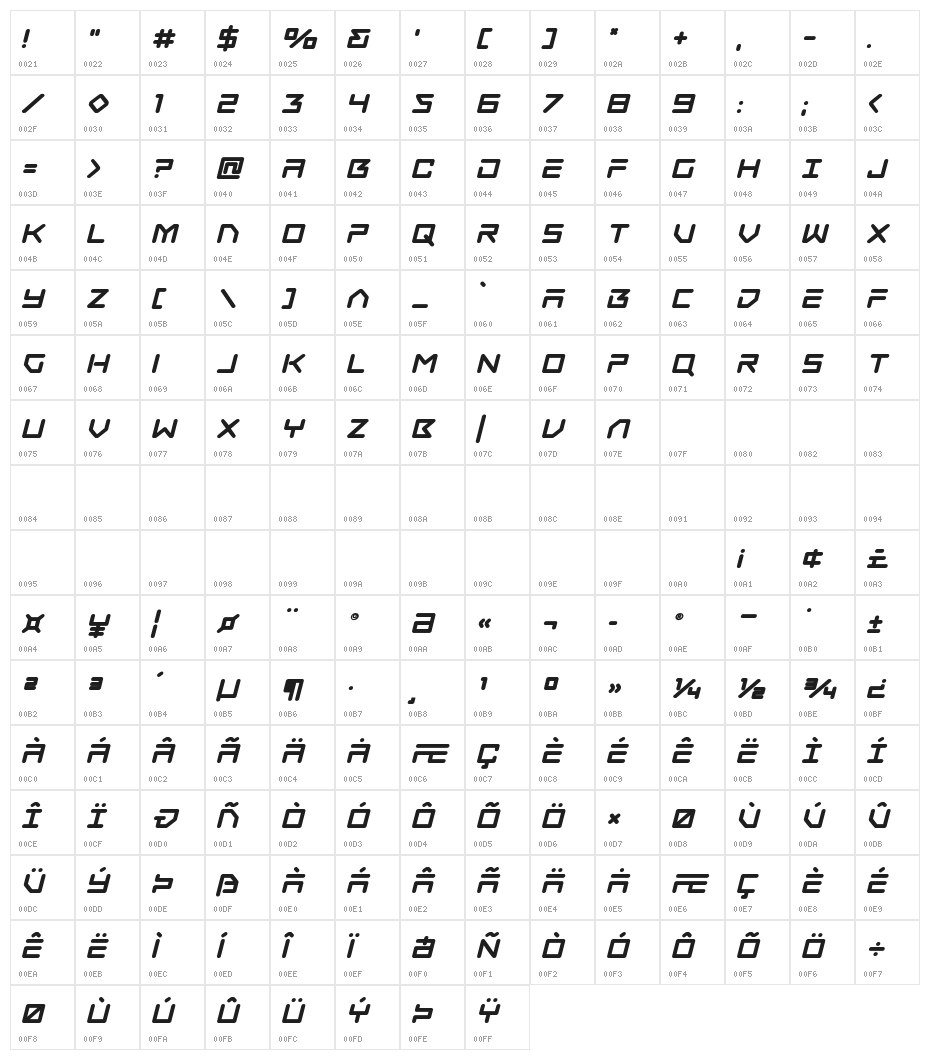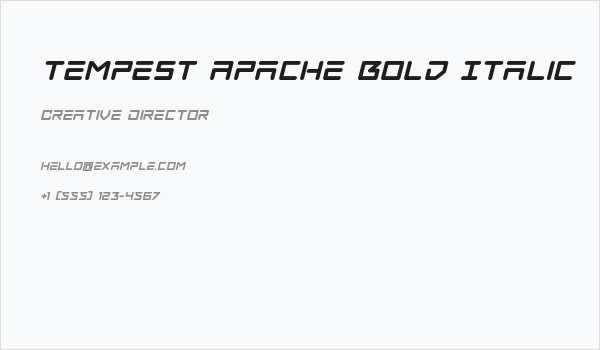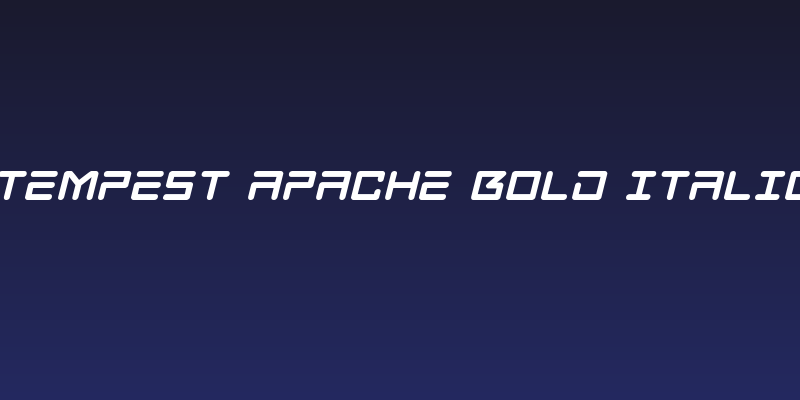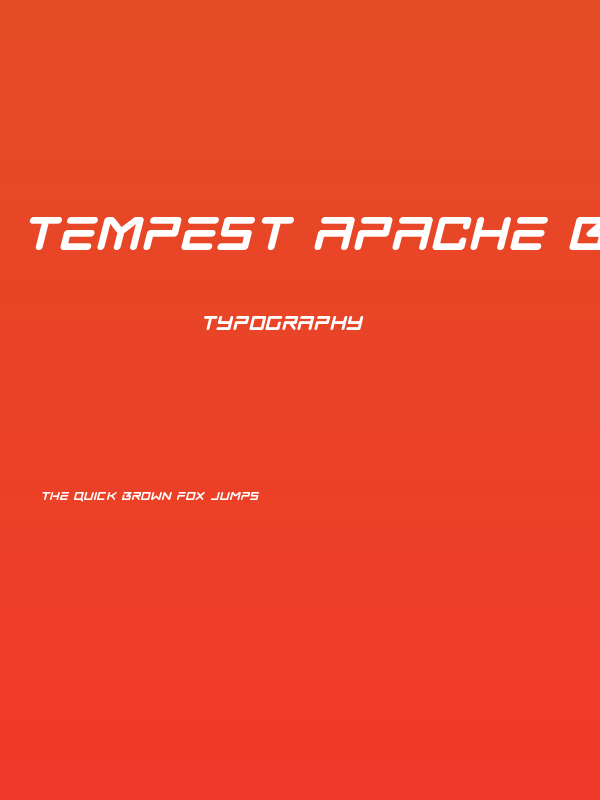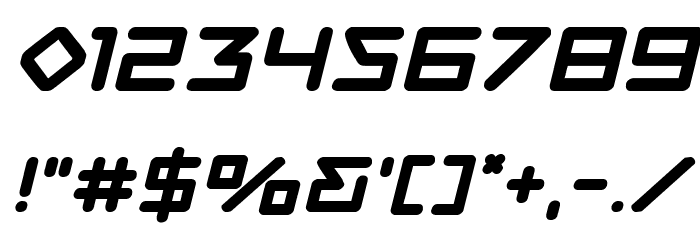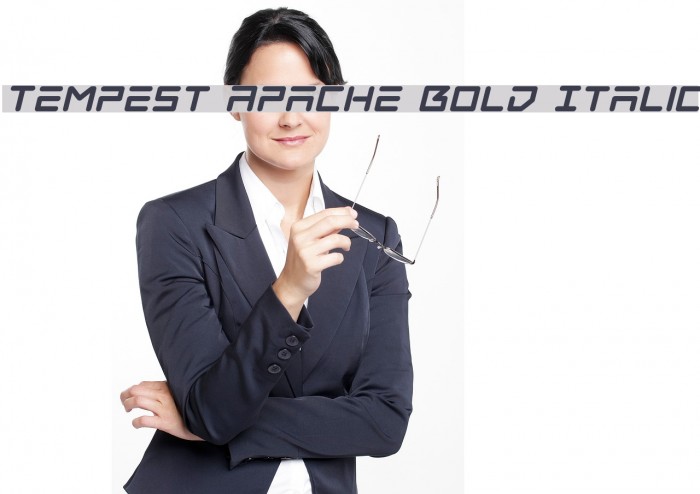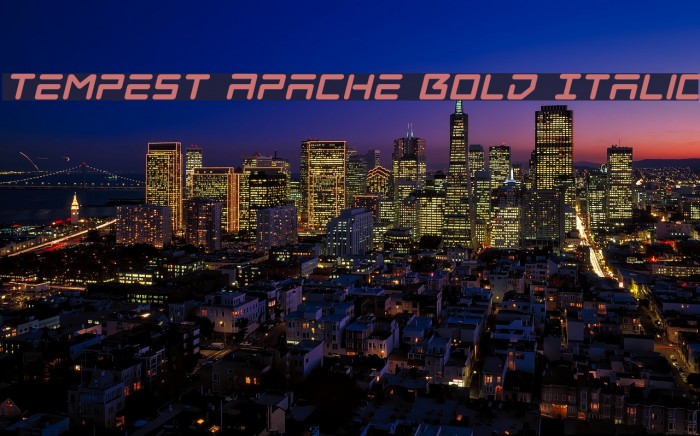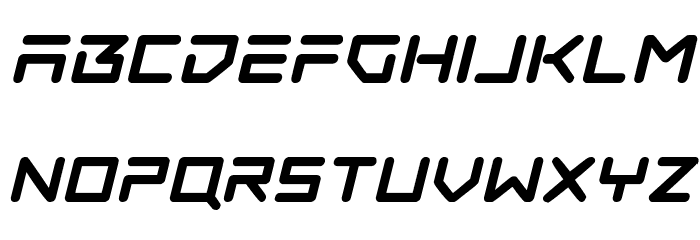
Tempest Apache Bold Italic Font
Tempest Apache Bold Italic Description
This font features a bold and italicized style with a modern, futuristic appearance. The characters are slightly slanted, giving a dynamic and forward-moving impression. The strokes are thick and consistent, providing a strong visual impact. The geometric shapes of the letters add a sense of precision and technicality. The font maintains a uniform width across all characters, ensuring readability while adding a unique flair. The numbers and special characters are designed to match the bold, italicized style, making them suitable for various applications.
| Proposed Projects | Ideal for technology branding, video game titles, futuristic posters, and digital interfaces. |